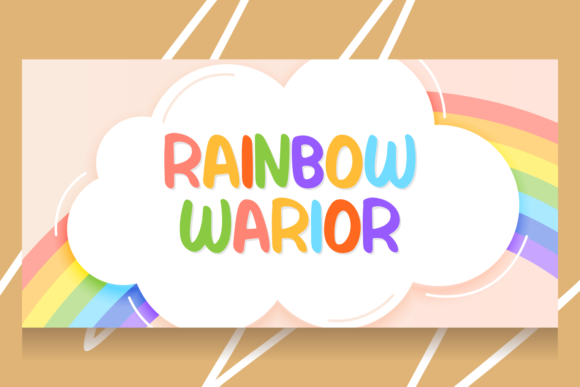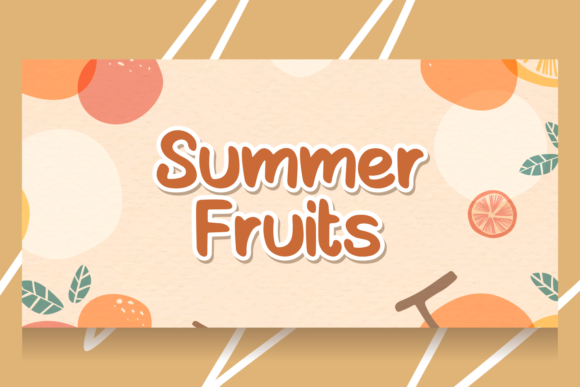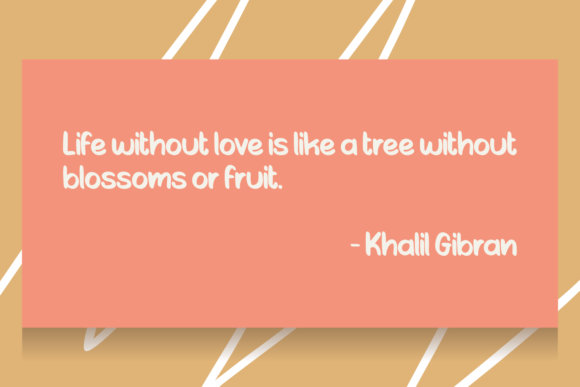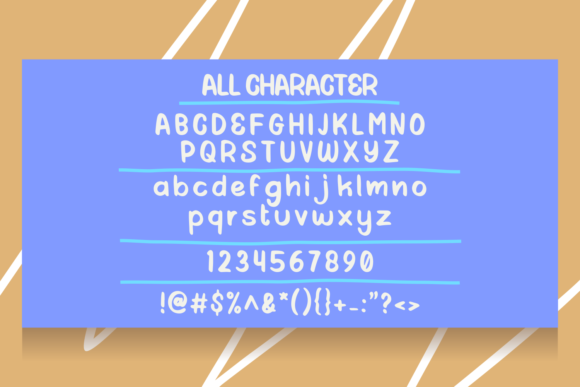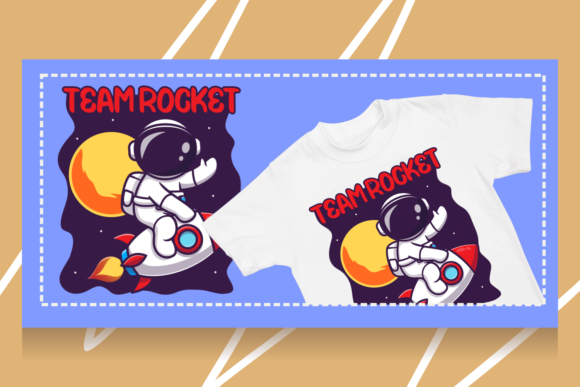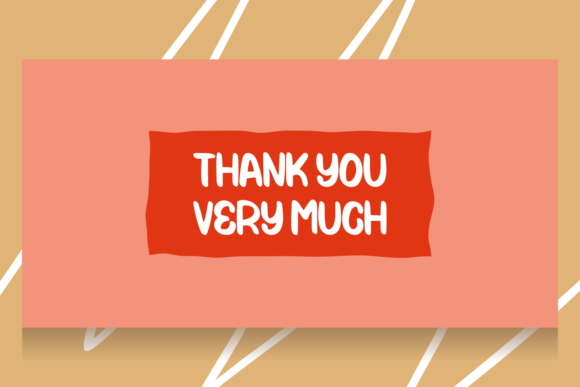
Enter Candillas Font, a stunning display font that’s sure to bring your designs to life. With its vintage charm and cool aesthetic, Candillas Font is the perfect addition to any poster, flyer, or print project. Whether you’re a seasoned designer or just starting out, this versatile font offers endless possibilities for creative expression.
- Unique Characteristics: The font features a unique, handwritten style with a touch of elegance and sophistication, making it ideal for creative and artistic applications.
Candillas Font Review
I recently had the chance to work with the Candillas font, and I wanted to share my honest thoughts about this typeface. Overall, I was pleasantly surprised by its unique characteristics.
- Unique aesthetic: Candillas has a distinctive, hand-drawn feel that sets it apart from more common fonts.
- Wide range of weights: The font comes in multiple weights, making it suitable for various design projects.
- Legibility: Despite its decorative nature, Candillas remains legible even at smaller font sizes.
- May not be suitable for body text: While Candillas is legible, it’s not ideal for large blocks of text due to its decorative style.
- Limited language support: The font may not have the necessary characters or language support for certain projects.
Overall impression
Candillas is a great choice for designs where you want to add a touch of personality and whimsy. Its unique aesthetic and wide range of weights make it a versatile font that can be used in a variety of contexts. However, it’s essential to consider its limitations when choosing the font for your project.
For best results, use Candillas Font in a clear and simple layout to showcase its elegant and refined design.
For best results, use Candillas Font in a high-contrast design to make it stand out.
For best results, use Candillas Font in a clear and simple design to showcase its elegant and refined style.
Candillas Font is ideal for:
- High-end product packaging
- Luxury event design
Alternatives to Candillas Font for Designers
Playfair Display is an elegant, high-end serif font perfect for luxury brands, fine art, and sophisticated designs. It features intricate details, swashes, and ornate flourishes. Use it for headings, titles, and any design element that requires opulence and sophistication.
Comparison to Candillas Font: While Candillas Font has a unique, handwritten feel, Playfair Display is more refined and traditional. Candillas Font is better suited for casual, friendly designs, whereas Playfair Display is ideal for high-end, premium brands.
Great Vibes is a beautiful, cursive script font ideal for creative, artistic, and emotive designs. It features fluid lines, elegant flourishes, and a touch of playfulness. Use it for headings, titles, and any design element that requires a sense of movement and energy.
For optimal display, we recommend using Candillas Font at a minimum size of 14 points and a resolution of 300 DPI (dots per inch) or higher. This will ensure clear and legible text, especially when used in digital applications.